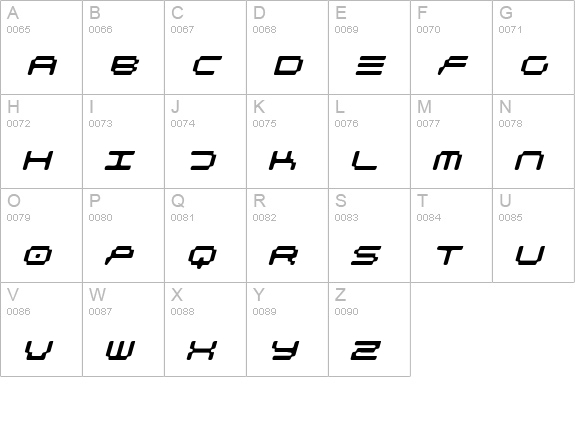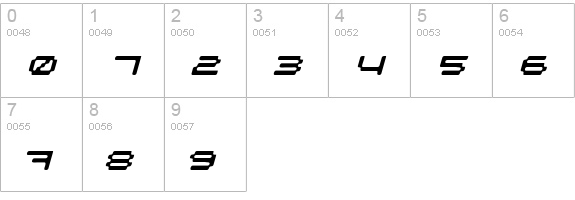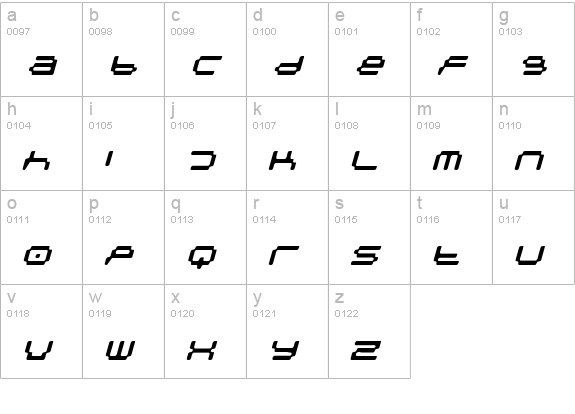
PixelpackItalic Font Details
PixelpackItalic font is a unique and stylish typeface that will add a touch of elegance to any design project. This font features a sleek and modern design with a hint of playfulness, making it perfect for a wide range of creative endeavors. Whether you're designing a logo, creating a website, or crafting a stunning poster, PixelpackItalic font will effortlessly elevate your work to the next level. What sets PixelpackItalic font apart is not only its stunning aesthetic appeal but also its accessibility. This font is available for free download at FontsMarket.com, making it easily accessible to all designers and creatives. With just a few clicks, you can bring this exquisite font into your design arsenal and unlock a world of possibilities. PixelpackItalic font is carefully crafted to ensure legibility and readability, even at smaller sizes. Its clean lines and precise letterforms make it suitable for both display and body text, allowing you to create cohesive and visually appealing designs. The subtle slant of the italicized characters adds a touch of sophistication, making this font perfect for adding emphasis or creating a unique typographic style. With its wide range of characters and extensive language support, PixelpackItalic font is a versatile choice for any project. Whether you're working on a branding project that requires a sleek and modern font or a playful design that calls for an element of whimsy, this font has got you covered. So why wait? Download PixelpackItalic font for free at FontsMarket.com and unleash your creativity. With this font in your toolkit, you'll have the power to create stunning designs that leave a lasting impression. Don't miss out on this opportunity to enhance your design projects with a font that is both stylish and freely accessible. Get PixelpackItalic font today and take your designs to new heights.